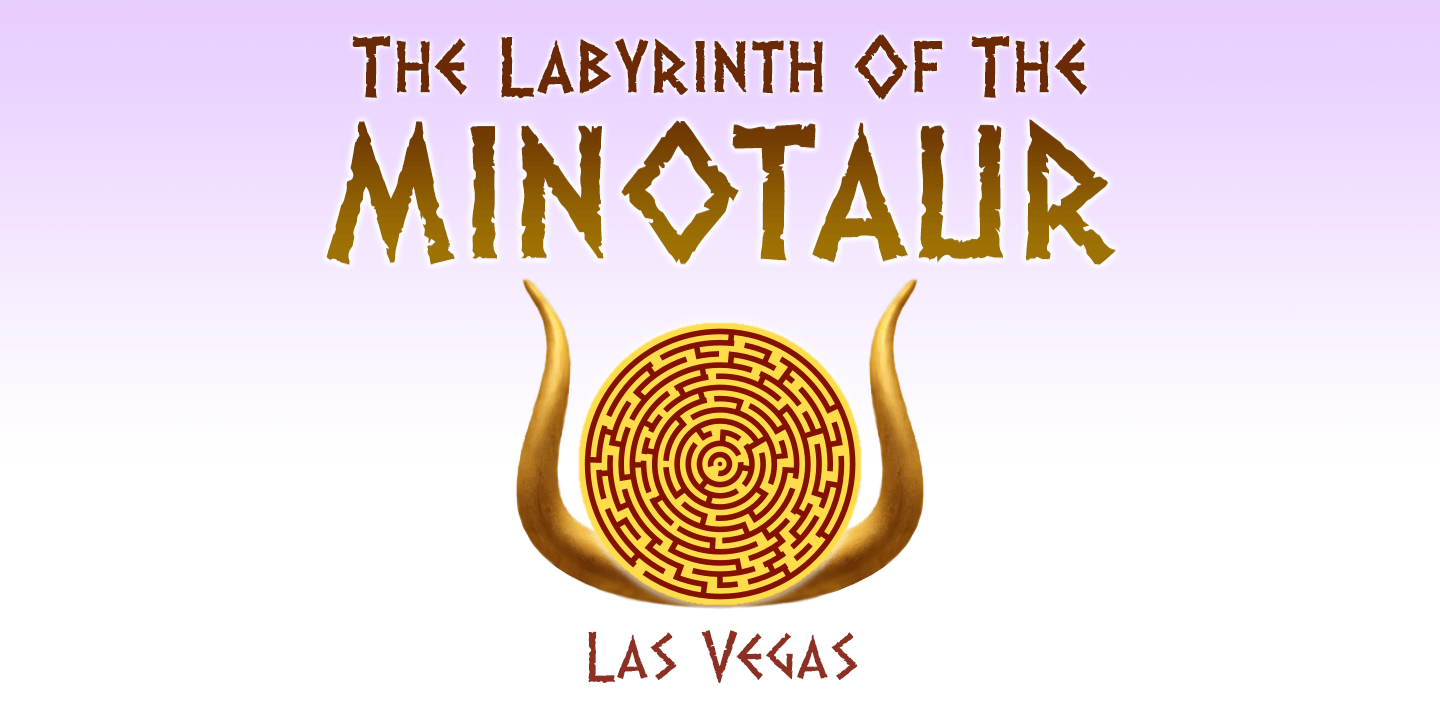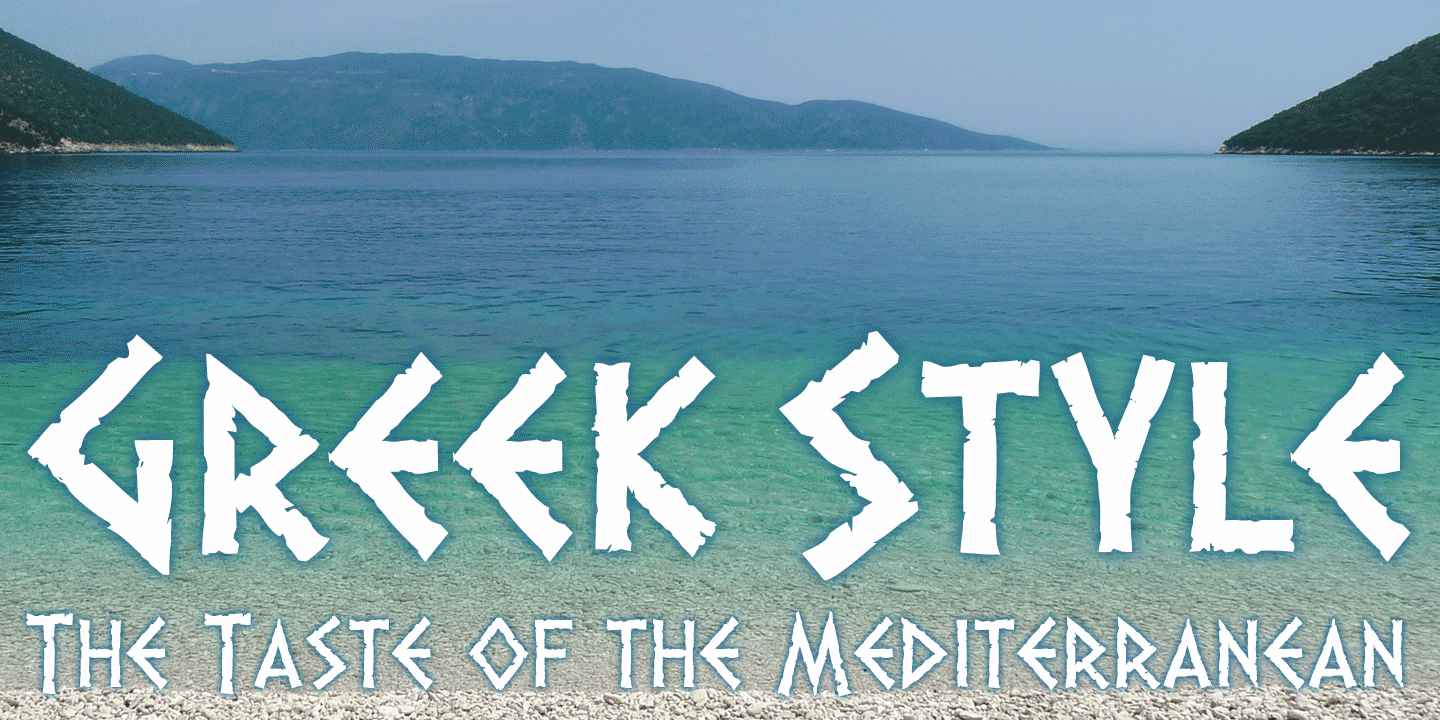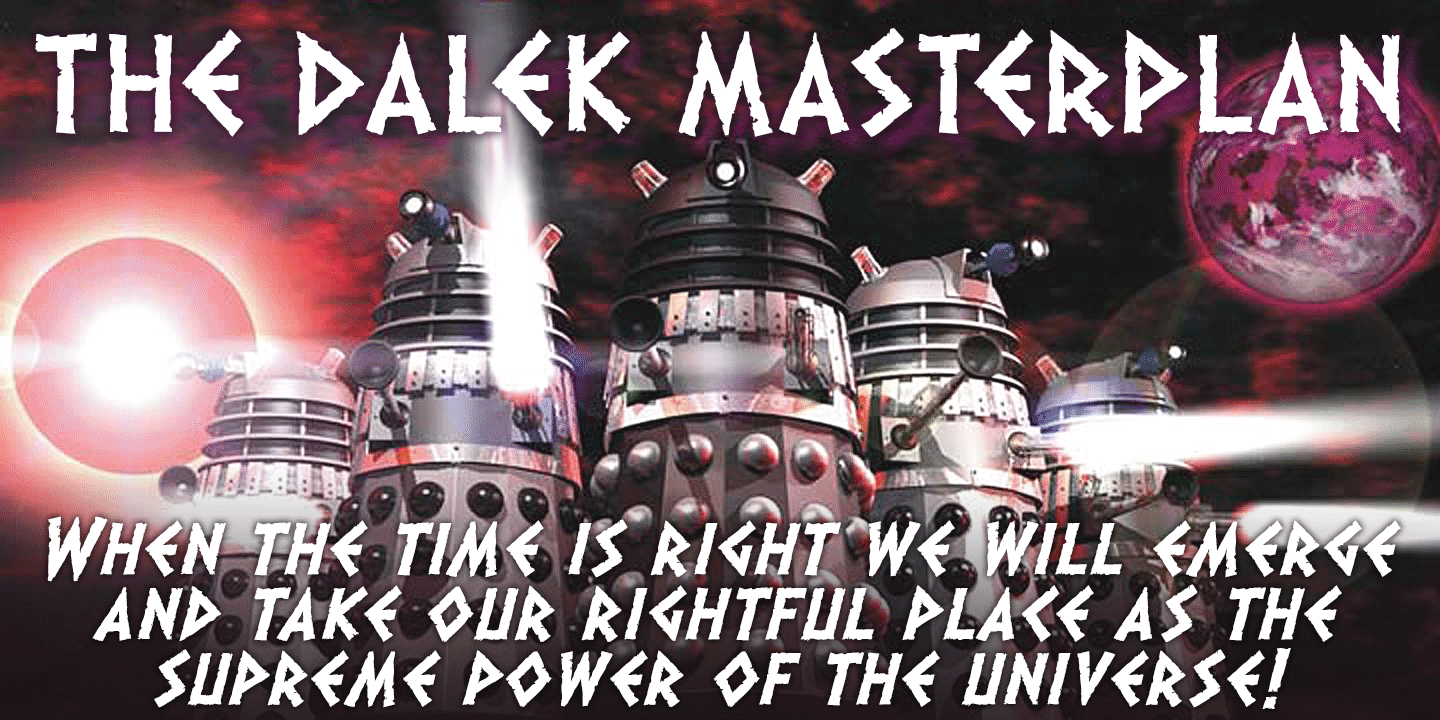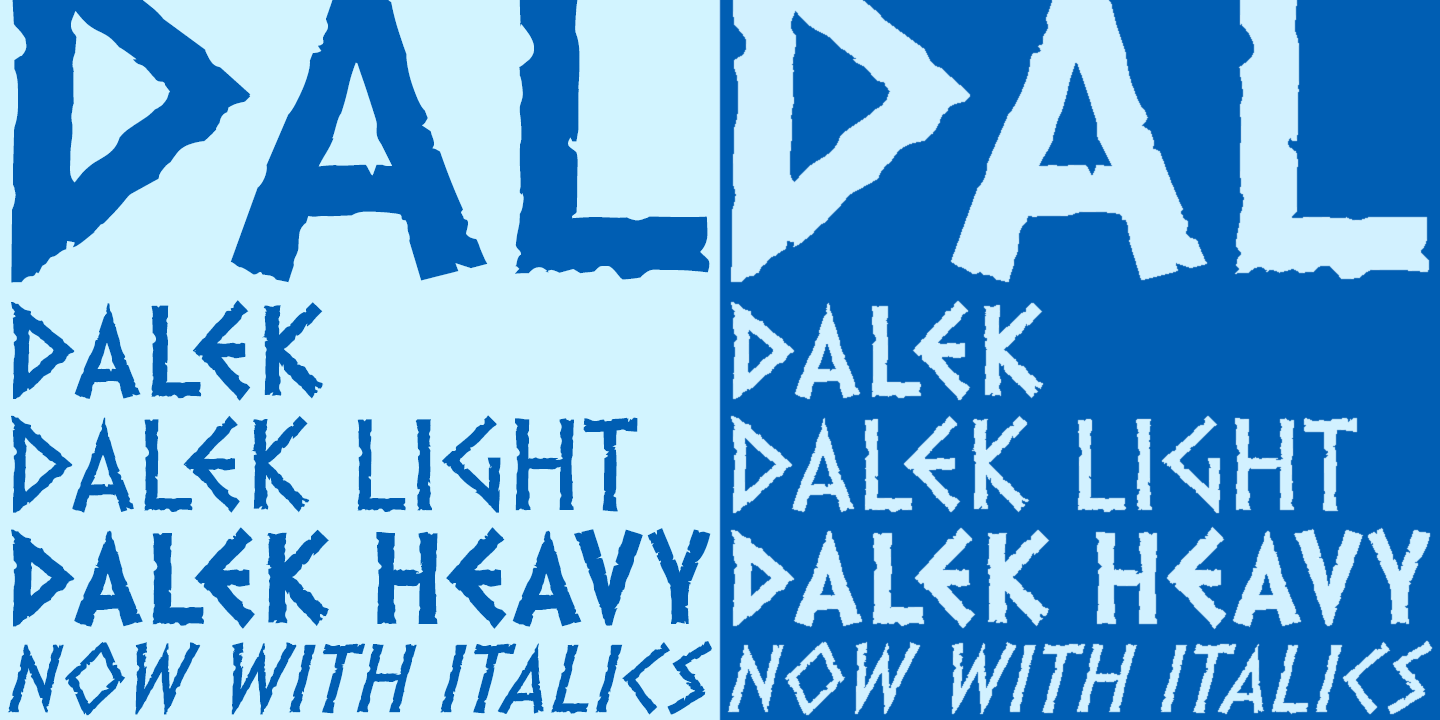
Dalek
Font Family by K-Type
Dalek is a distressed, small caps typeface based on the lettering used in the Dalek Book of 1964 and in the Daleks strip in TV21 comic. The fonts have overtones of Greek, Phoenician and Runic alphabets.
Choose between three weights - Regular, Heavy or Light, each weight is supplied with an Italic (optically corrected oblique). The fonts contain a full complement of Latin Extended-A characters, and the Font Bros downloads include Greek capitals/small caps.